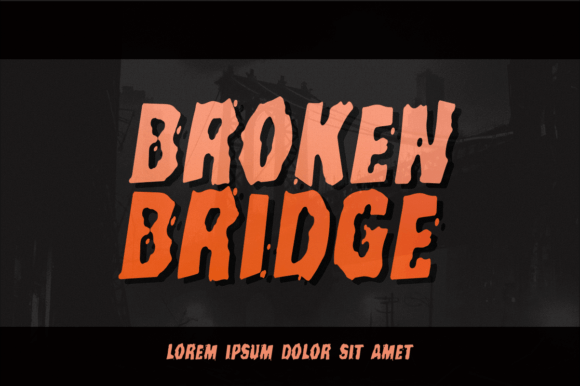
Introducing Broken Bridge: The Bold Display Font That Shatters Expectations
I’ll never forget the design project that led me to discover Broken Bridge. I was working on a bold, grunge-inspired campaign for a client who wanted to shake things up in their industry. As I scrolled through font after font, nothing seemed quite right – until I stumbled upon Broken Bridge. Its edgy vibes and fearless attitude instantly resonated with my vision, and I knew I’d found the perfect fit. In this article, I’ll share my experience with Broken Bridge, its features, and how to make the most of this stunning display font.
An Honest Review of Broken Bridge
- ✨ **Bold and fearless**: Broken Bridge commands attention with its rugged, grunge-inspired aesthetic.
- ✅ **Highly versatile**: This font adapts seamlessly to various design contexts, from posters and logos to social media graphics and more.
- 💥 **Edgy, yet elegant**: Broken Bridge’s unique blend of roughness and sophistication sets it apart from other display fonts.
While Broken Bridge is an exceptional font, there are a few minor considerations to keep in mind:
- ⚠️ **Limited legibility at small sizes**: Due to its bold, distressed nature, Broken Bridge may not be the best choice for body text or small font sizes.
- 🤔 **Some glyphs may require manual adjustment**: Depending on your design, you might need to tweak certain glyphs for optimal spacing and alignment.
The Backstory Behind Broken Bridge
Broken Bridge was designed with the intention of shattering expectations and pushing the boundaries of traditional typography. Its creator drew inspiration from the urban landscape, graffiti, and the rebellious spirit of grunge culture. The result is a font that embodies a fearless, bold attitude, perfect for designers who want to make a statement.
| Author | Deedeetype |
Q: What type of projects is Broken Bridge best suited for?
A: Broken Bridge excels in bold, attention-grabbing designs, such as posters, logos, social media graphics, and other display typography applications.
Q: Does Broken Bridge support OpenType features?
A: Yes, Broken Bridge includes OpenType features, such as stylistic alternates, glyphs, and ligatures, allowing you to add depth and visual interest to your typography.